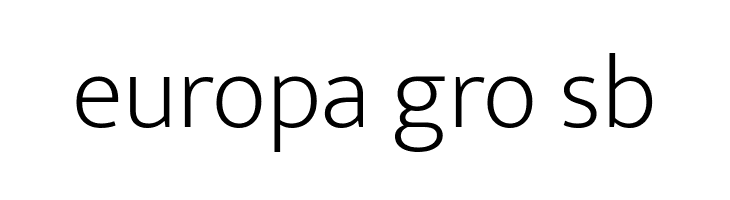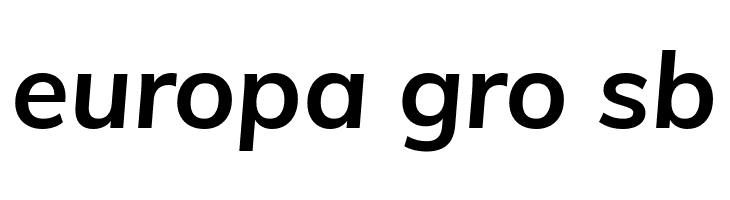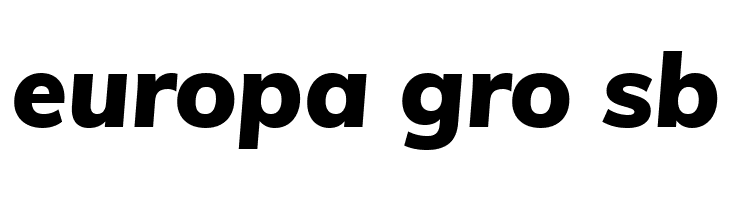
A modern, clean sans-serif font with balanced spacing and smooth lines.
A sleek, ultra-thin font with a modern, geometric design.
A modern, clean sans-serif font with excellent readability.
A bold, modern font with strong, uniform characters.
A bold, italic font with a dynamic and modern style.
A bold, modern font with clean lines and excellent readability.
A bold, italic font with a modern and dynamic style.
A bold, modern sans-serif font with strong lines and uniform stroke width.
A bold, italic typeface with a modern and dynamic style.
A clean, modern, and extra light font perfect for minimalist designs.
A sleek, extra light italic font with a modern and elegant design.
A sleek, modern italic font with smooth curves and clean lines.